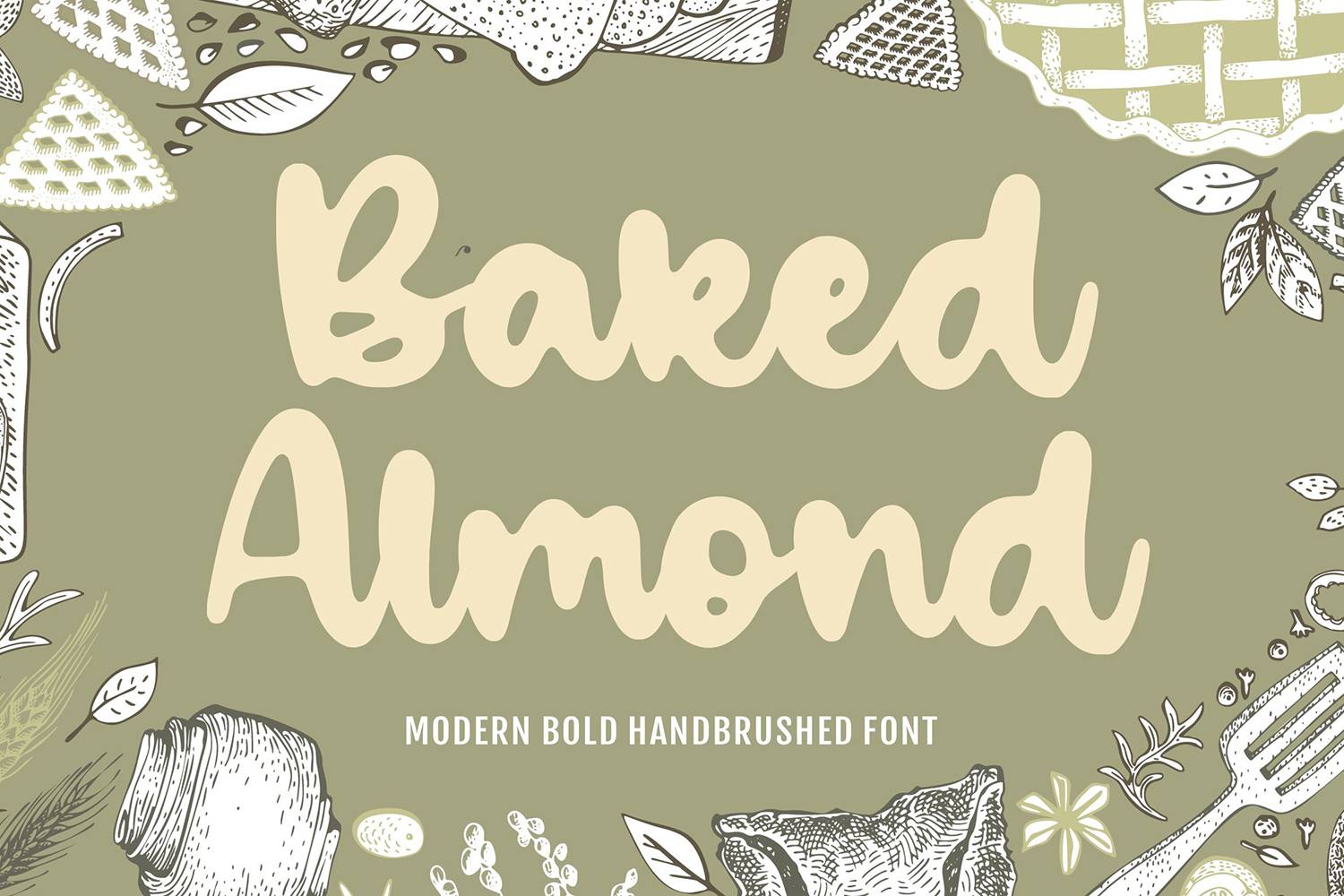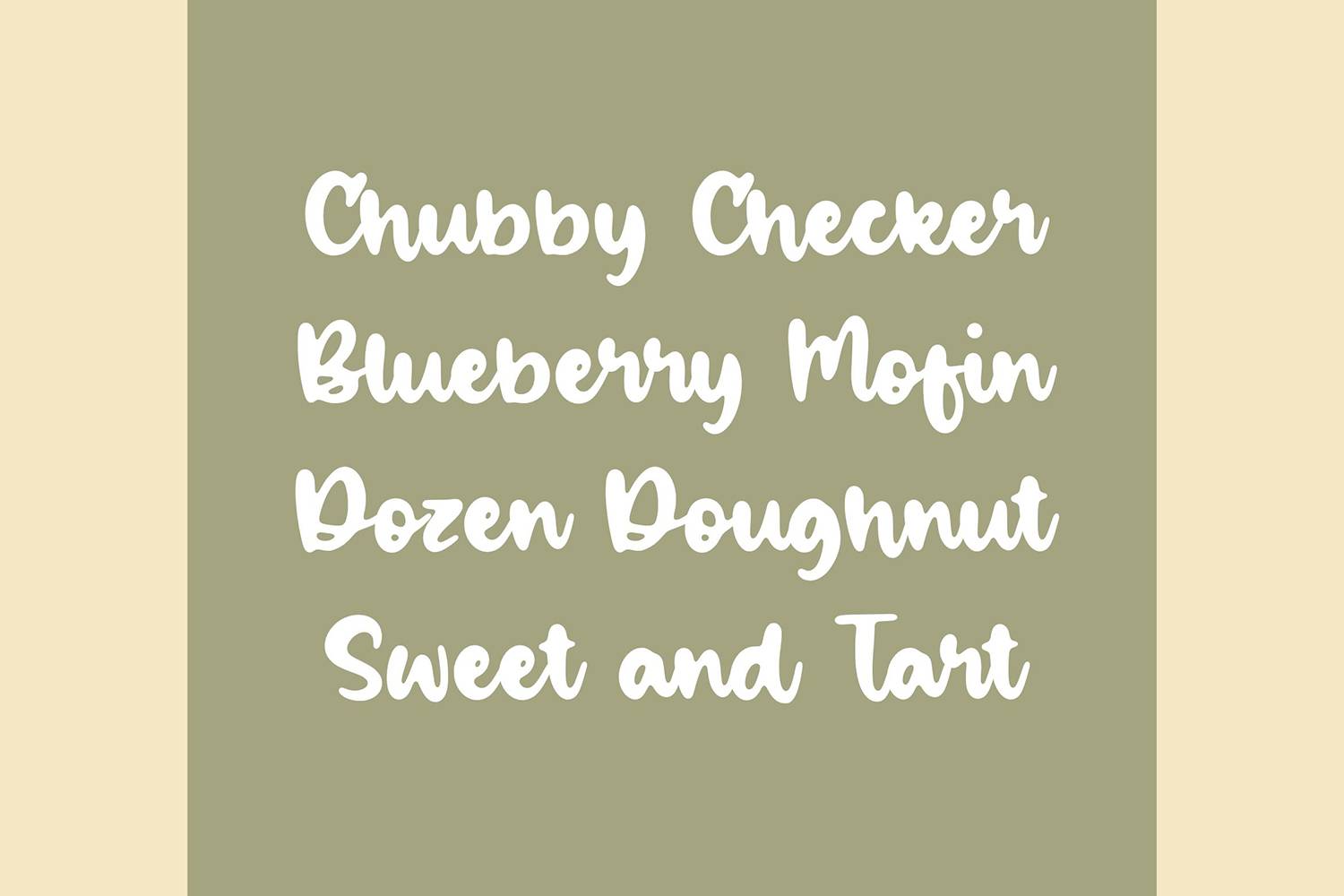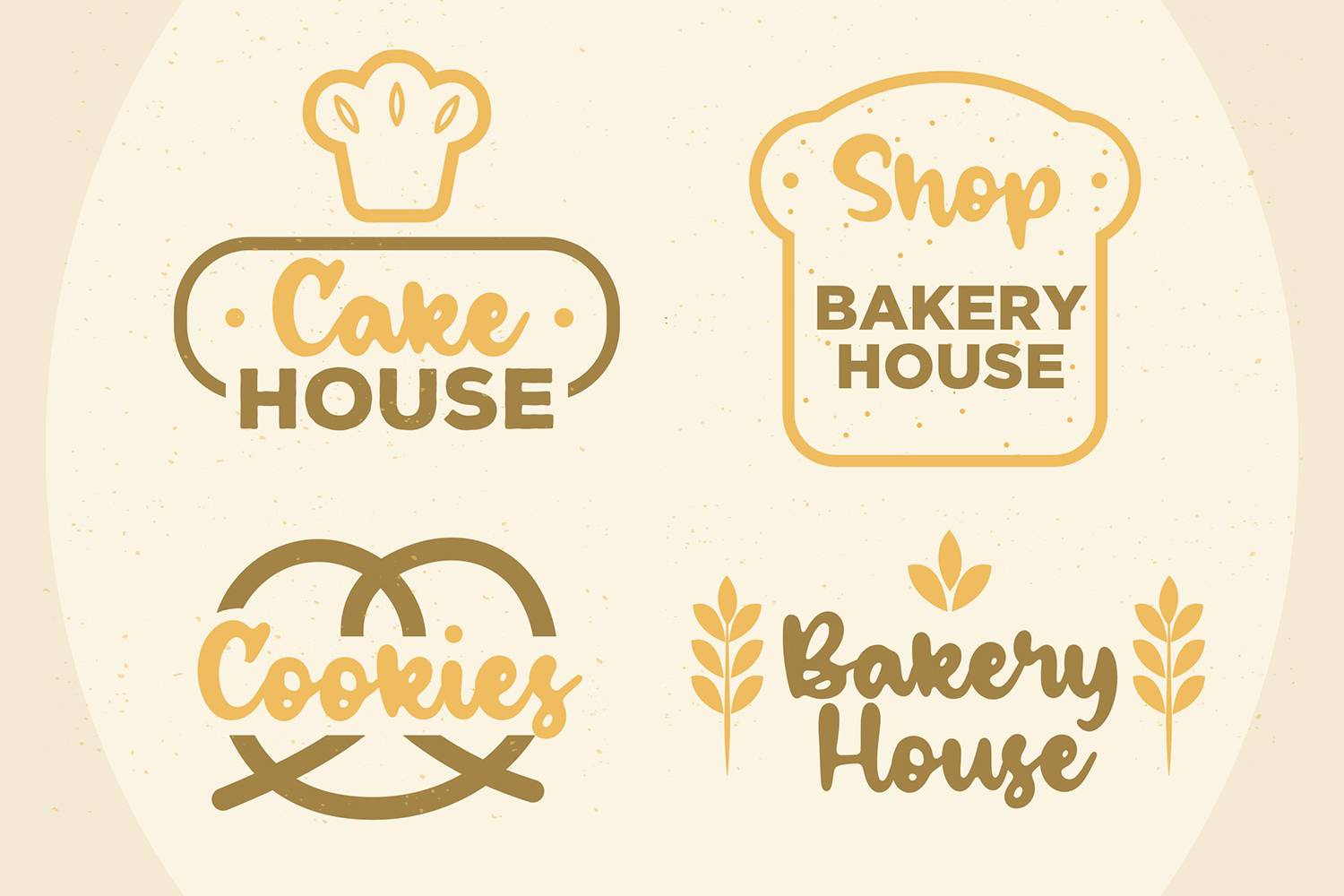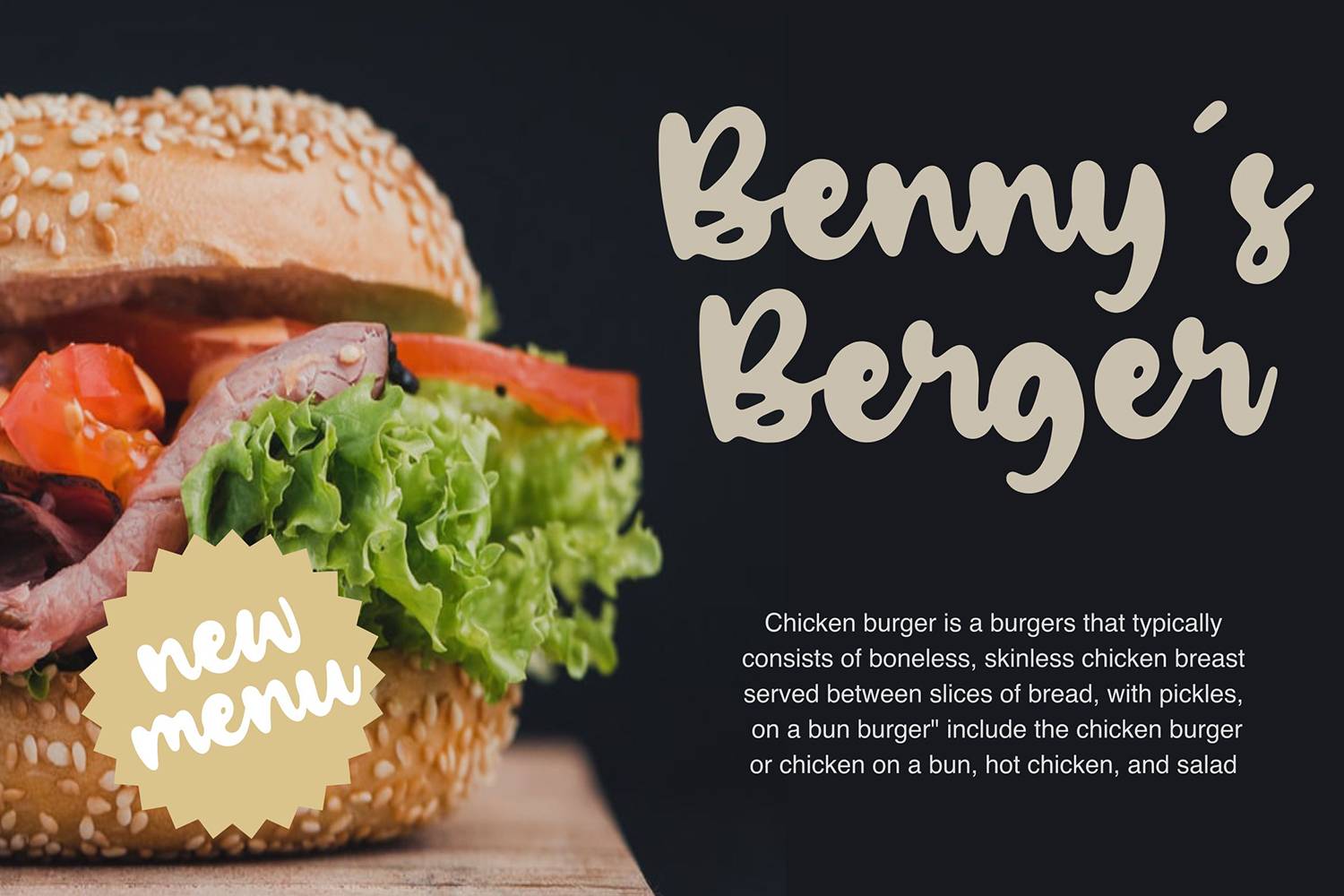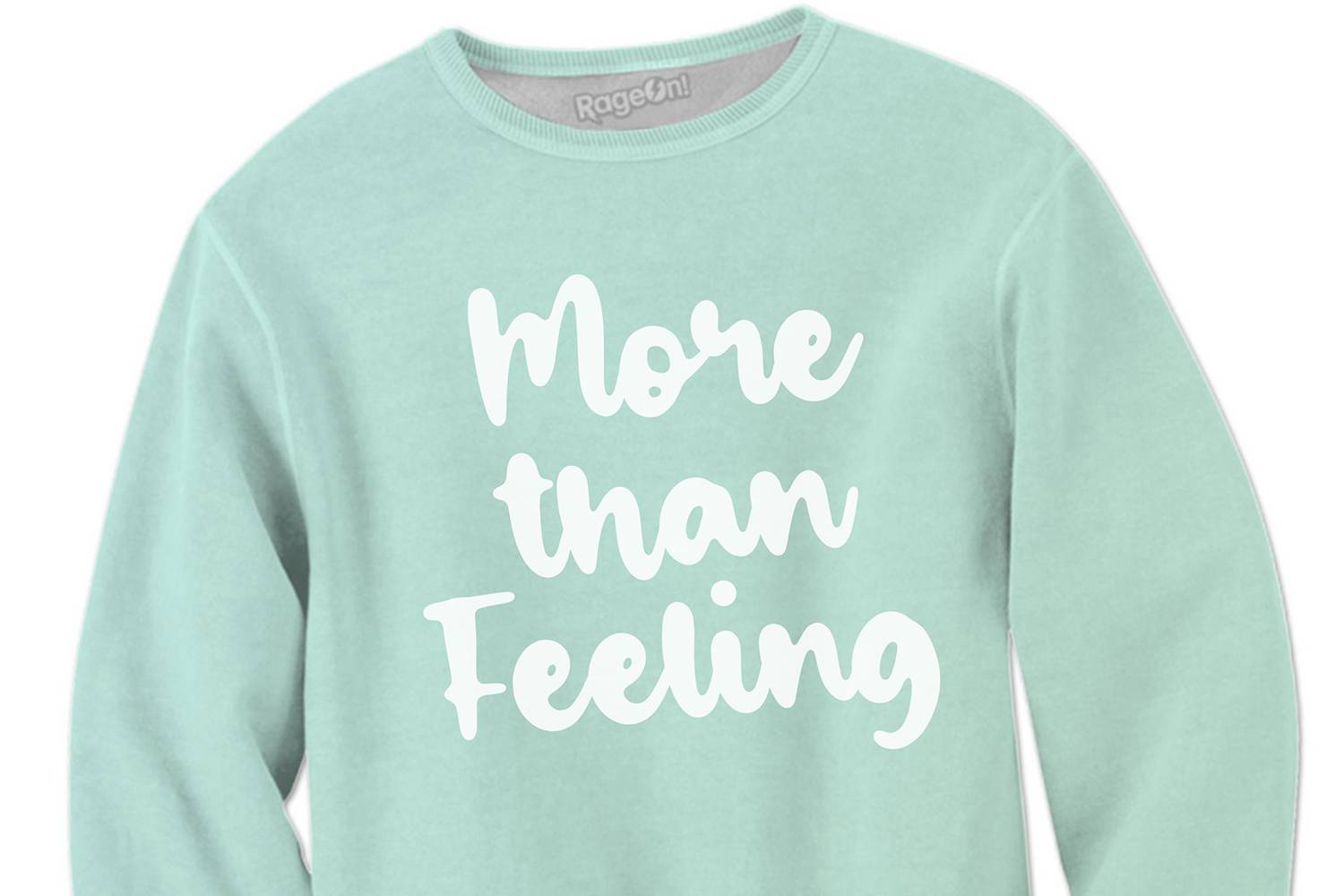
Baked Almond is a playful, bold script font with smooth, rounded strokes that give it a friendly and approachable feel. Its lively letterforms and casual style make it perfect for branding, packaging, and creative projects that want to convey warmth and cheerfulness. This font works especially well in headlines and logos where a fun, informal touch is desired.
Baked Almond Font
About Baked Almond Font